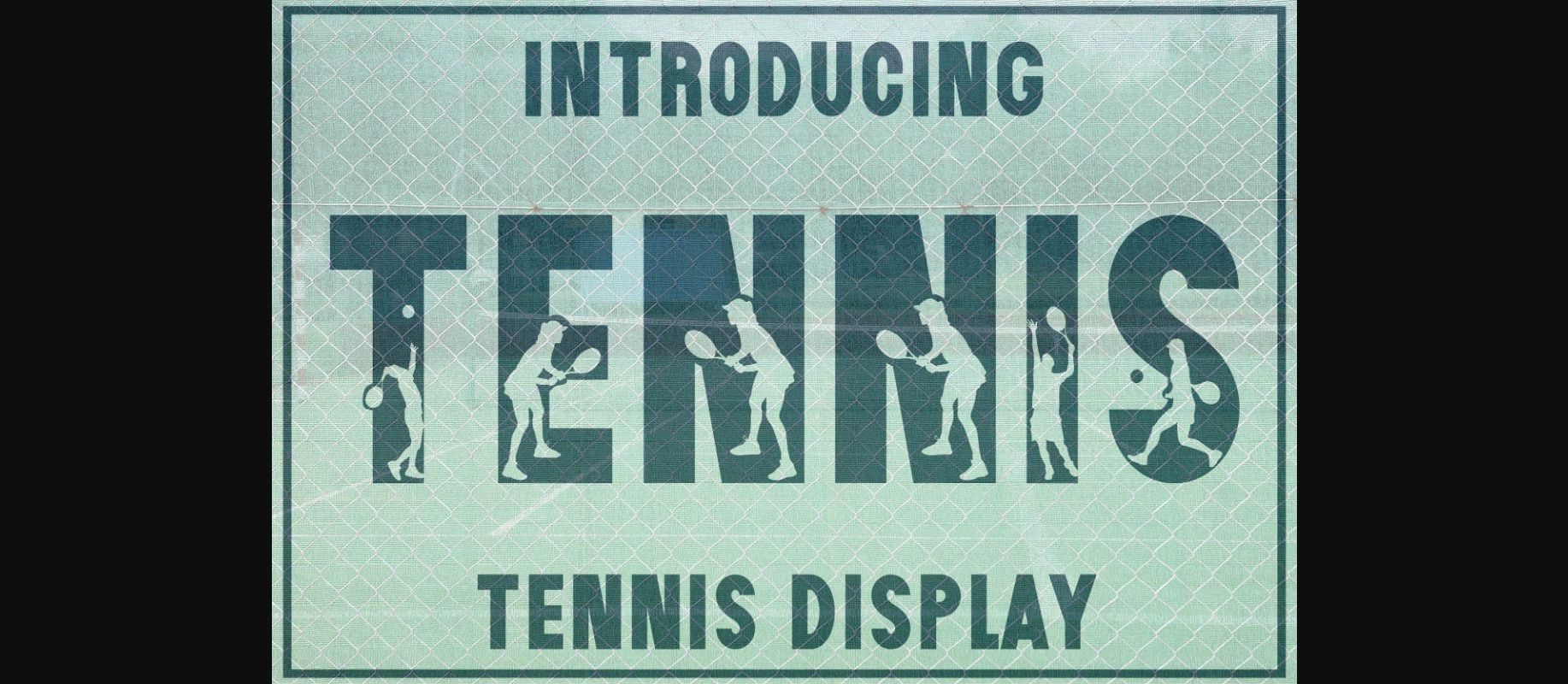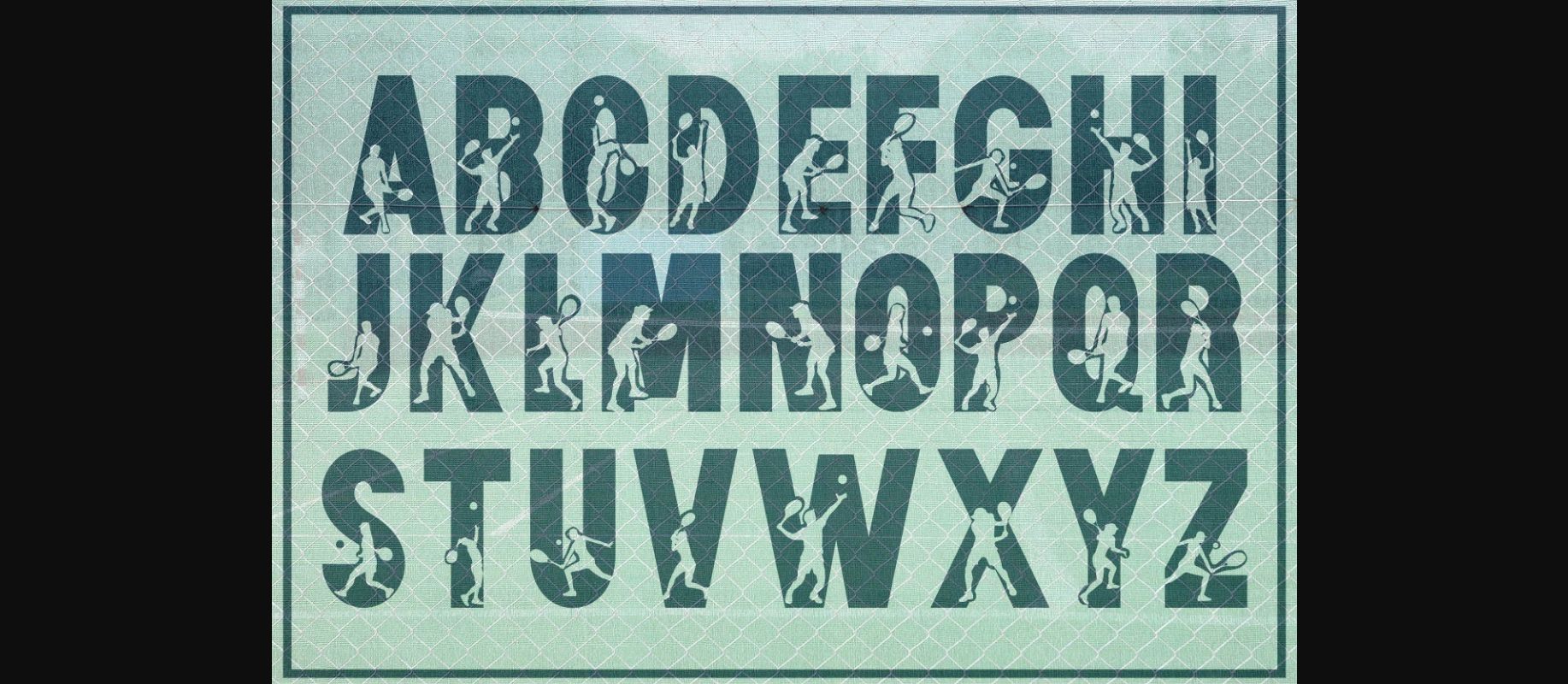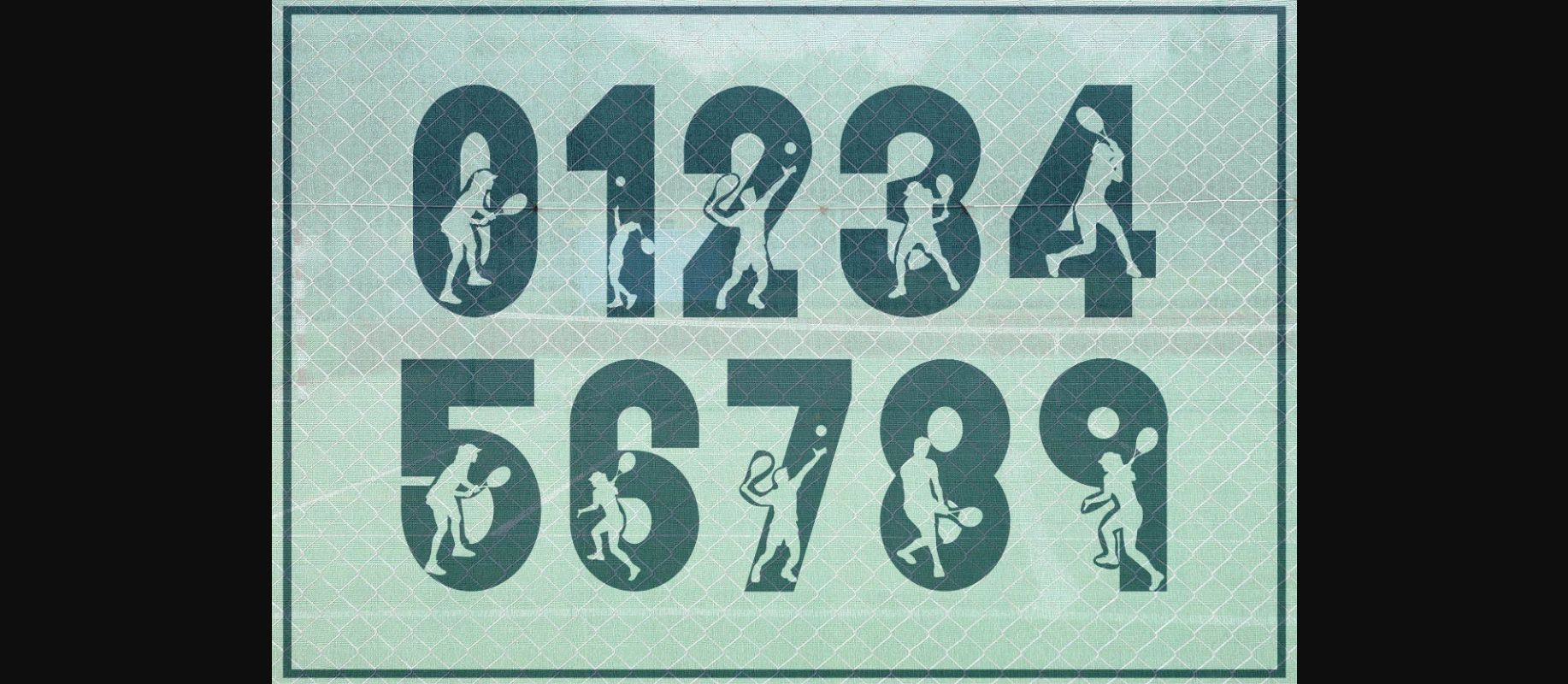
About Tennis Font
Tennis is a cool and unique decorative font, featuring characters that resemble tennis balls. Whether you’re using it for crafting, digital designing,presentations, or greeting card making, it’s perfect!